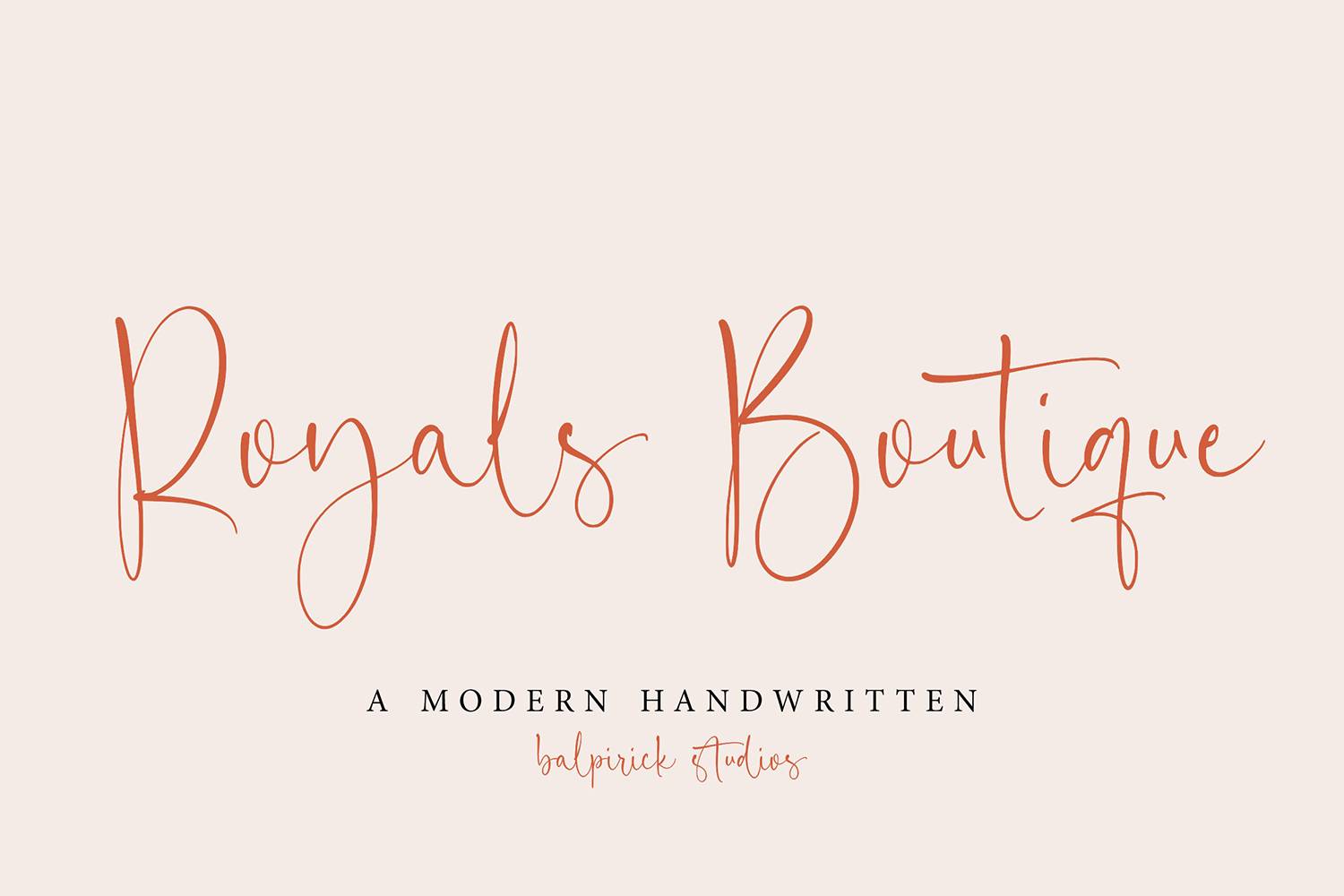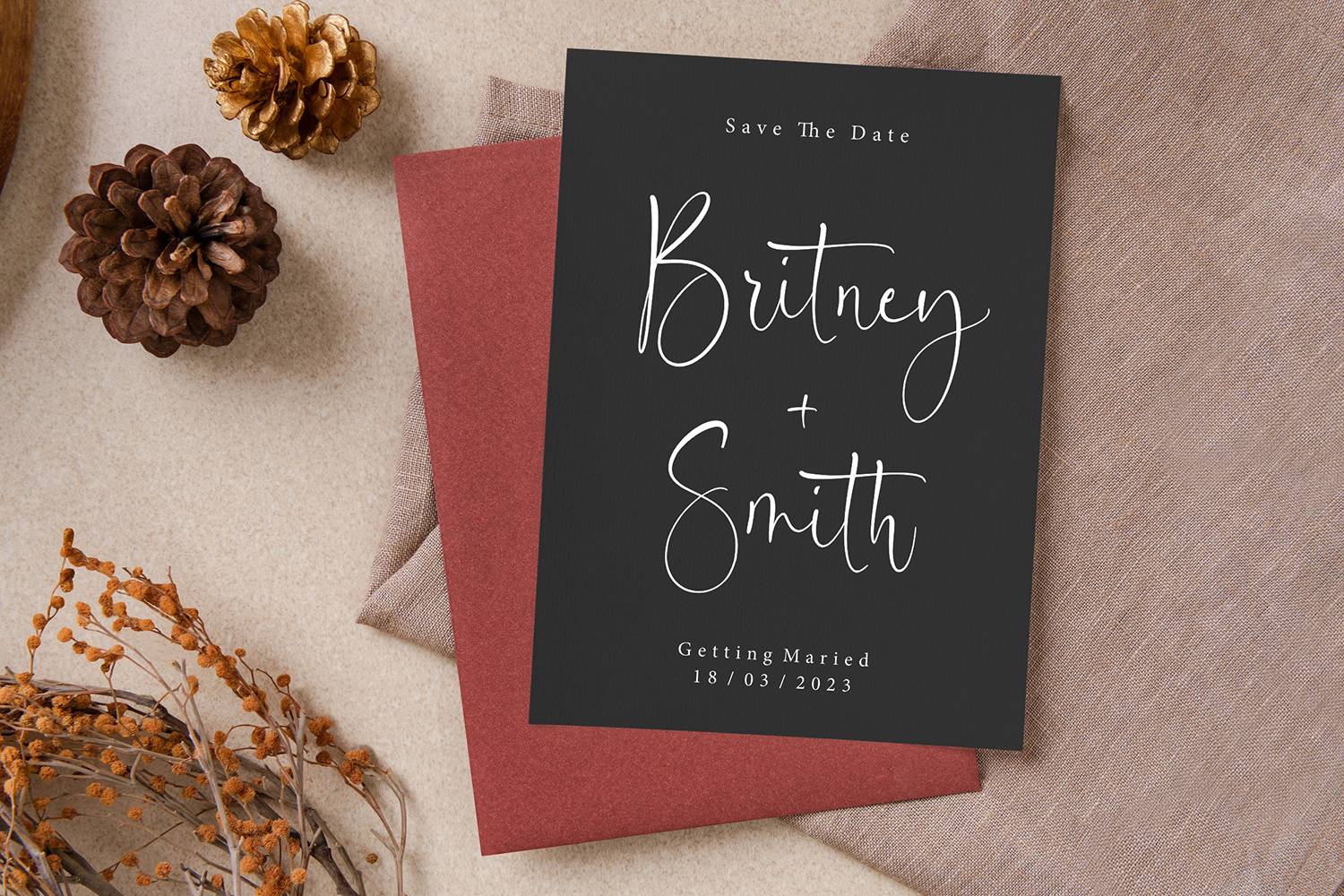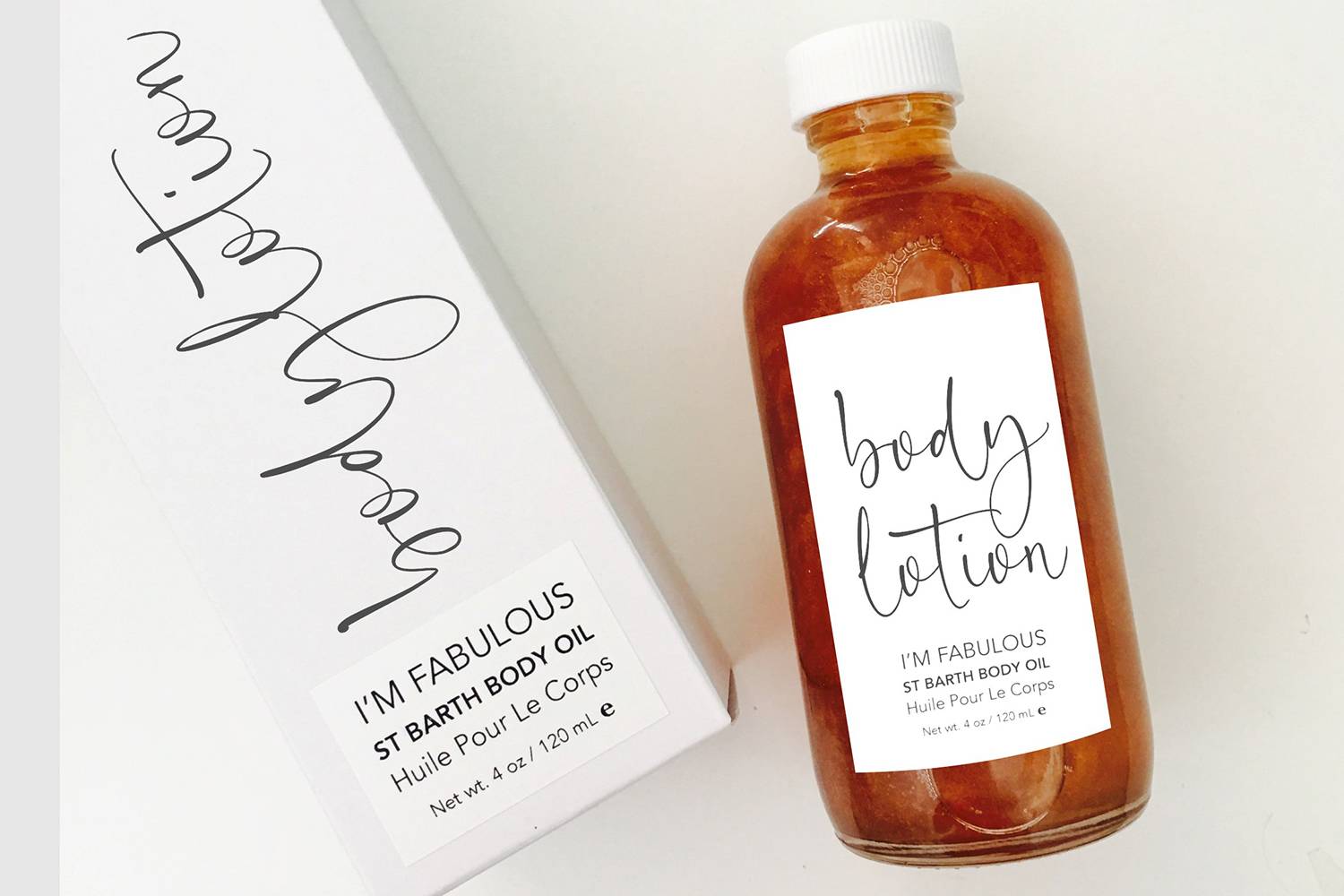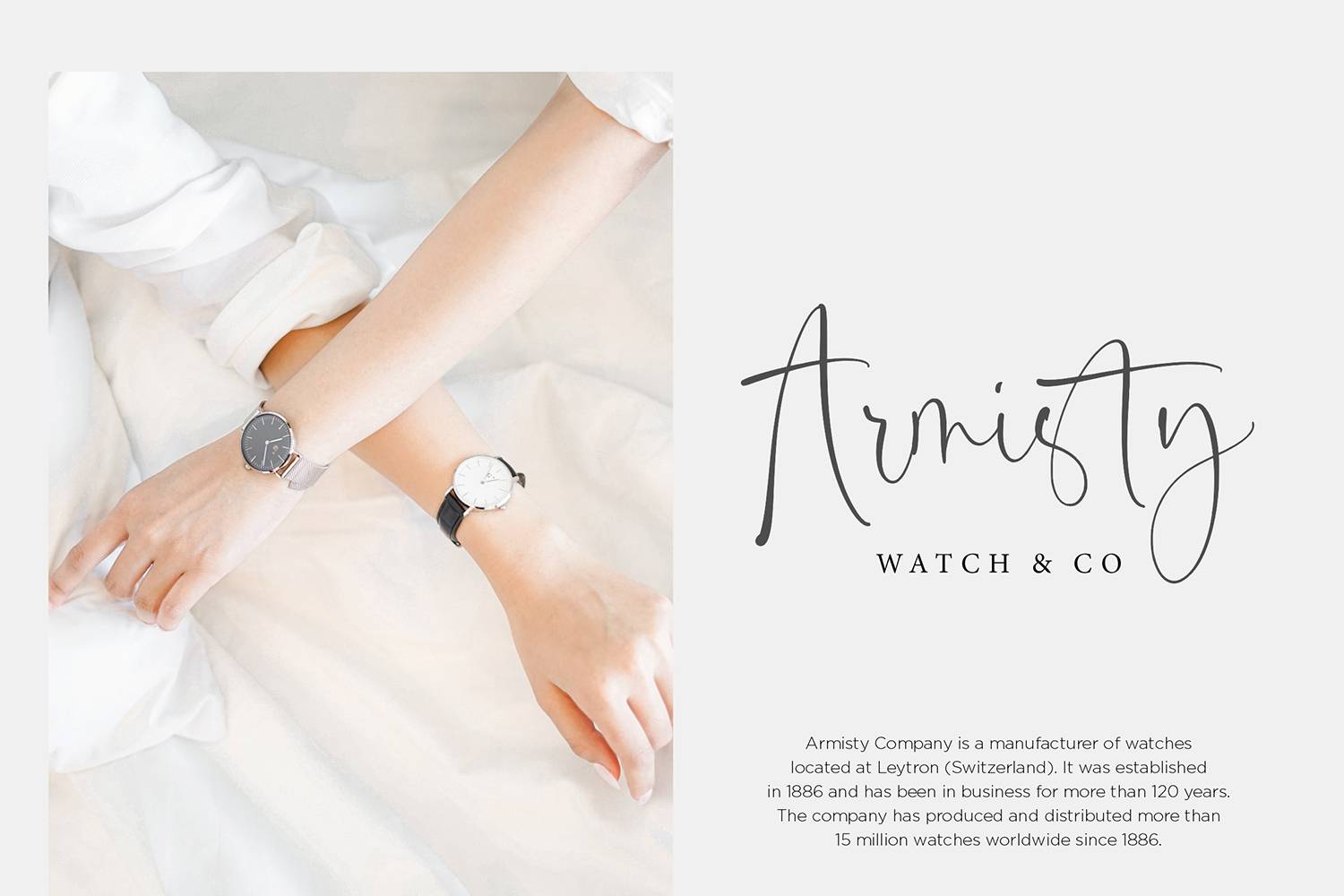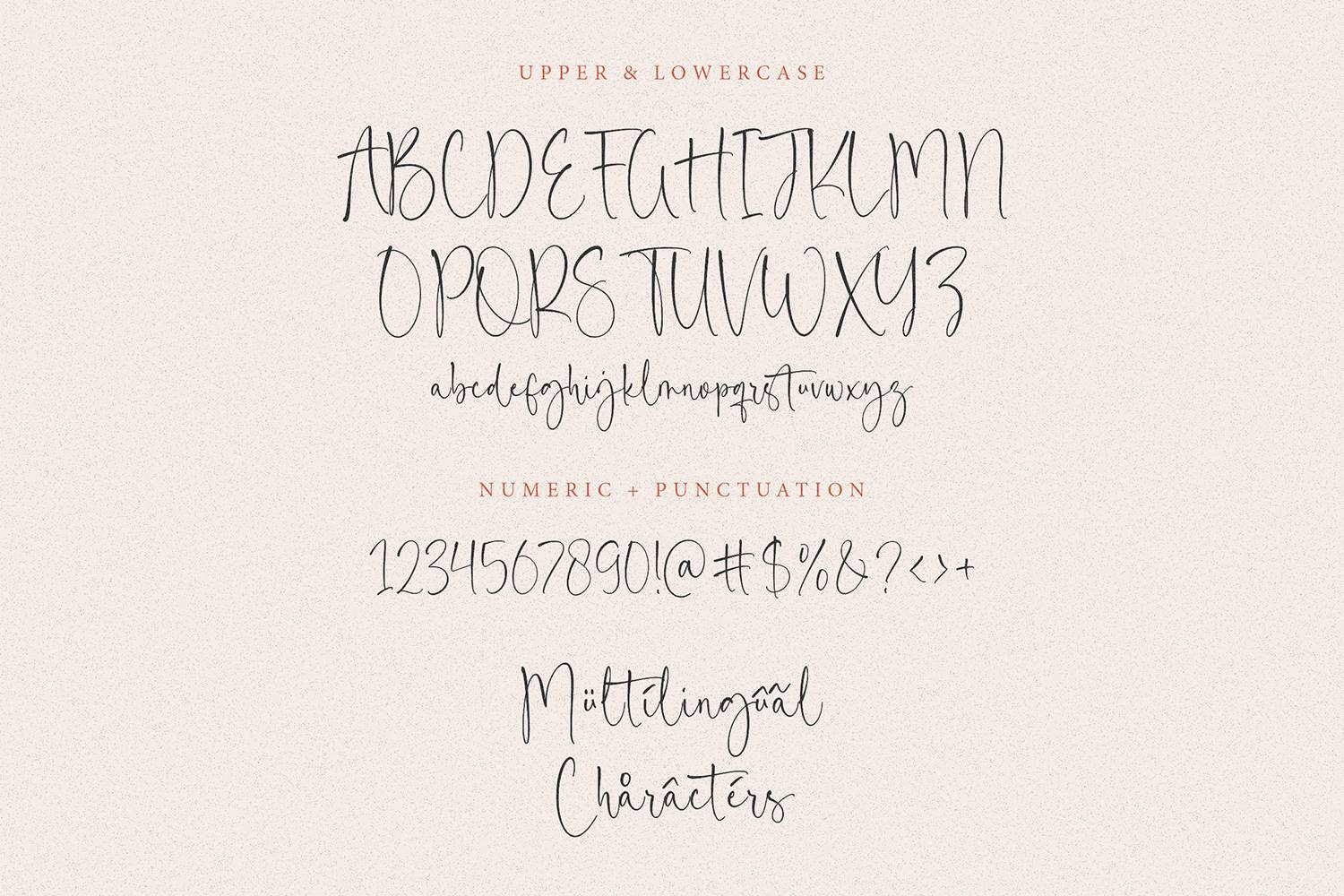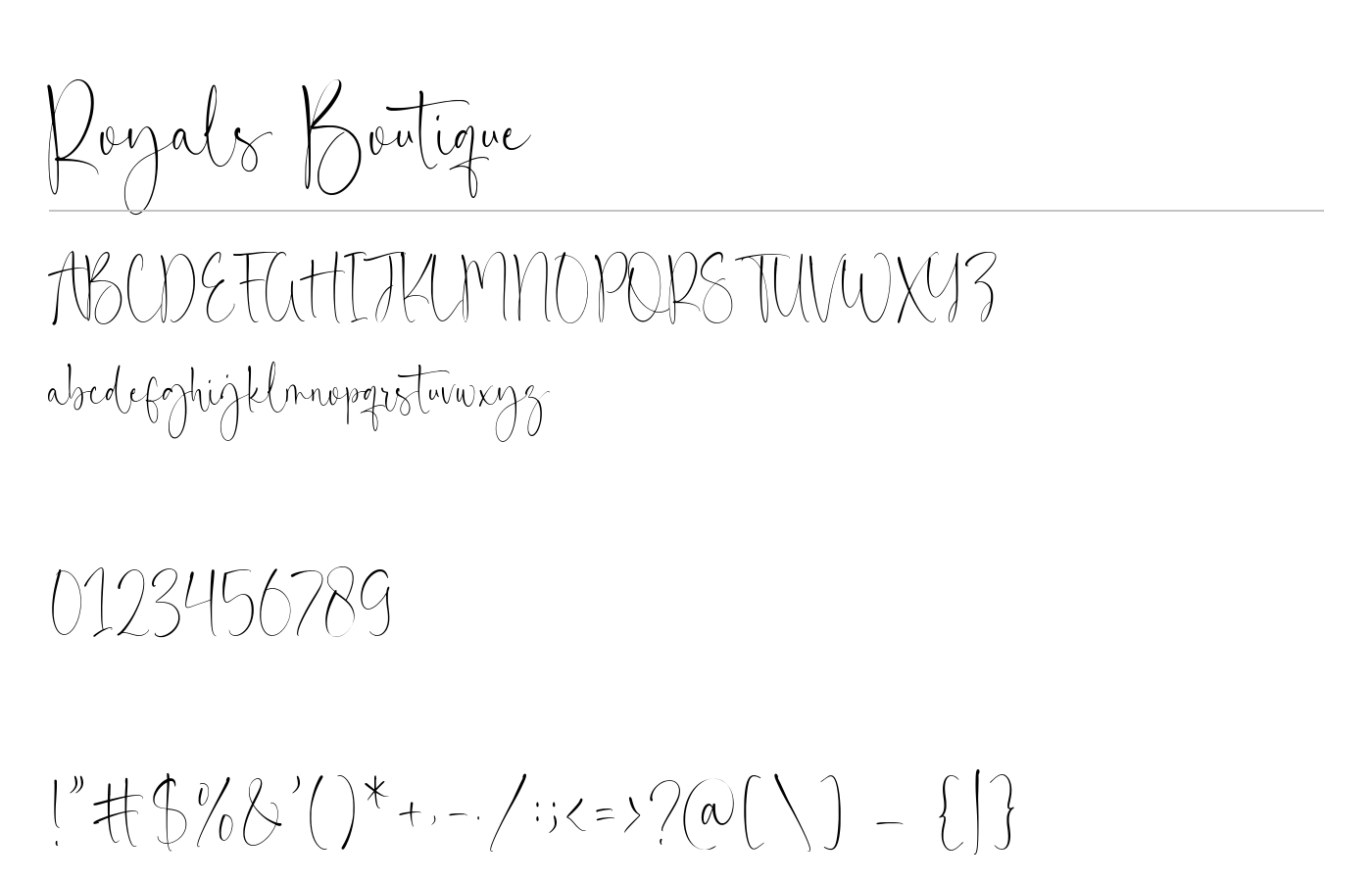
Royals Boutique is a delicate, handwritten script font characterized by its thin, elegant strokes and tall, narrow letterforms that evoke a refined and graceful feel. Perfect for branding in fashion, beauty, or luxury products, its airy and stylish look adds a personal, sophisticated touch to logos, invitations, and high-end editorial designs. This font works best in display uses where its intricate details can shine and convey a sense of exclusivity and charm.
Royals Boutique Font
About Royals Boutique Font